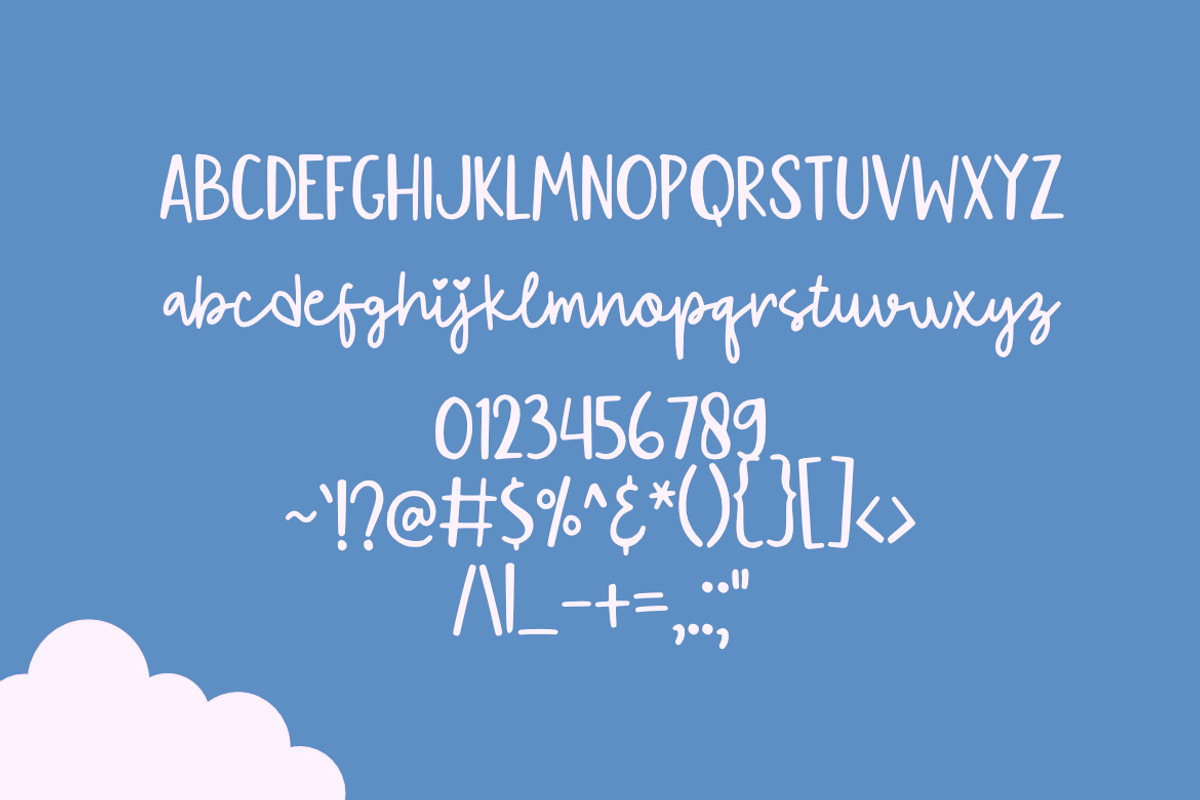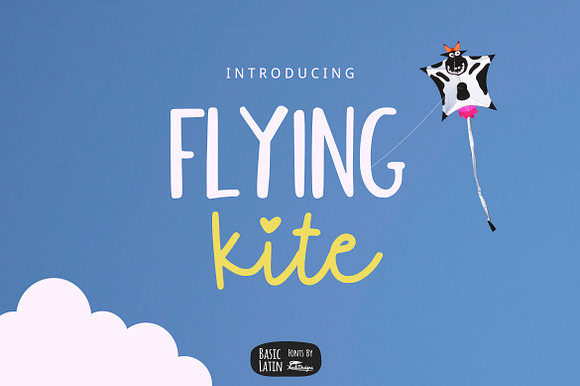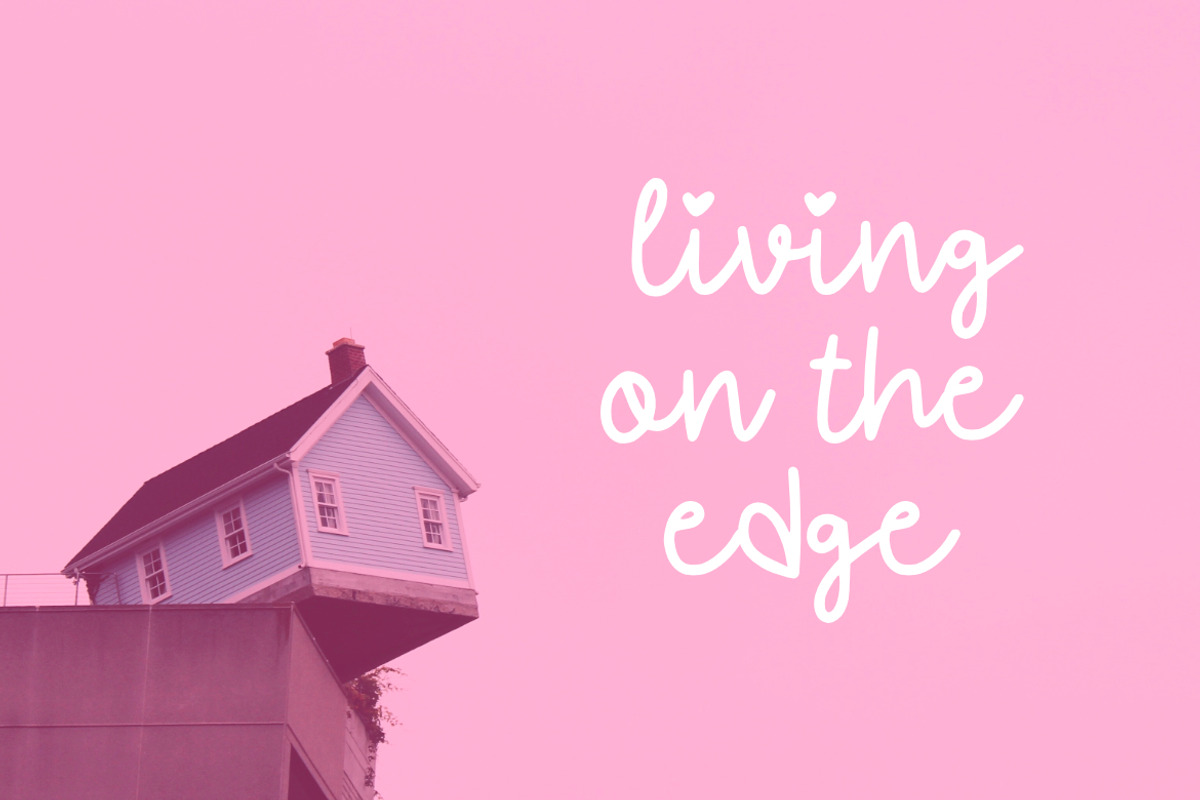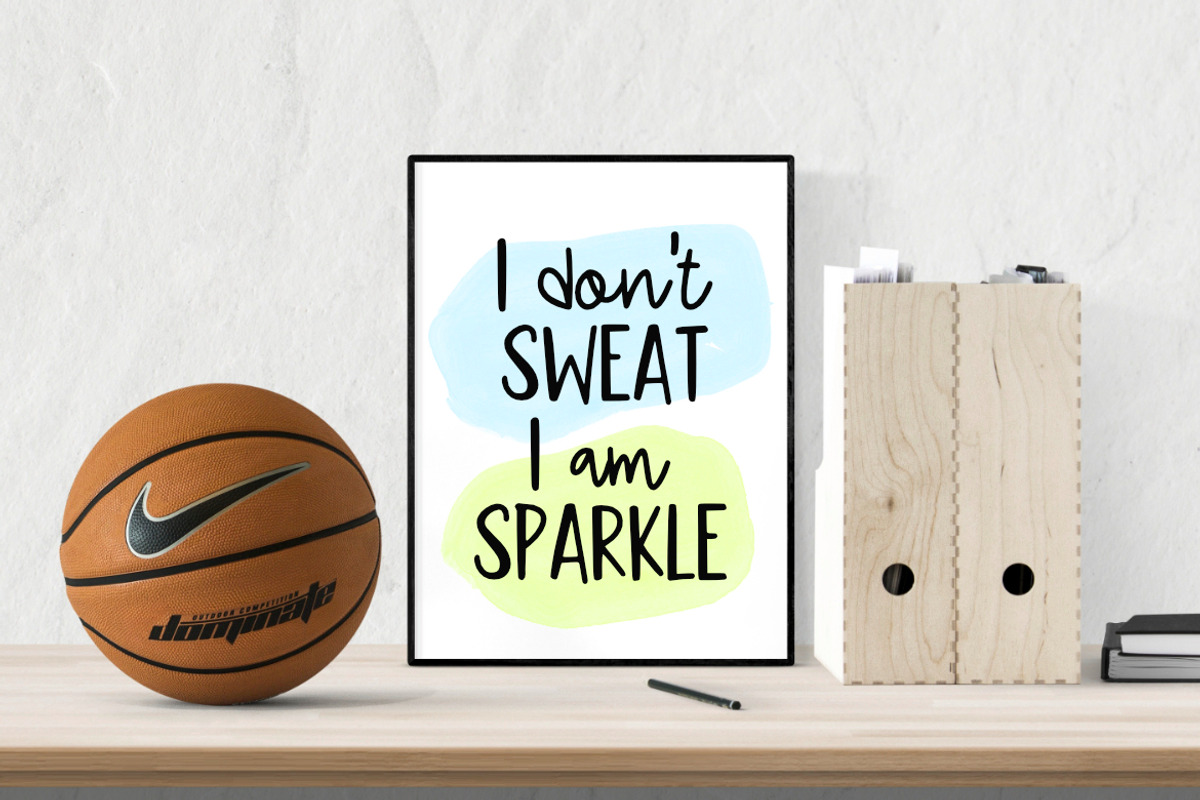
Flying Kite Font
Simple, cute and lovely fun script font , suitable for many project children book, quotes, logo , heading , title etc.
Flying Kite Font by YandiDesigns fits naturally into Branding, posters, packaging, typography.